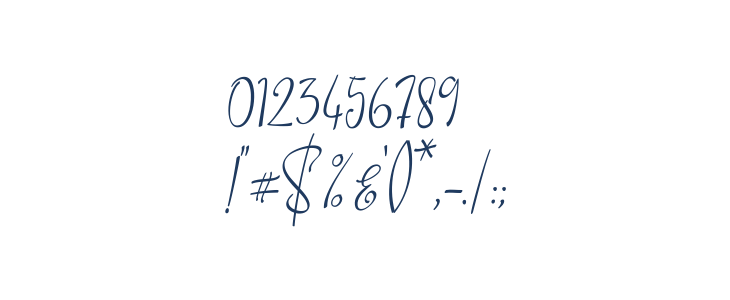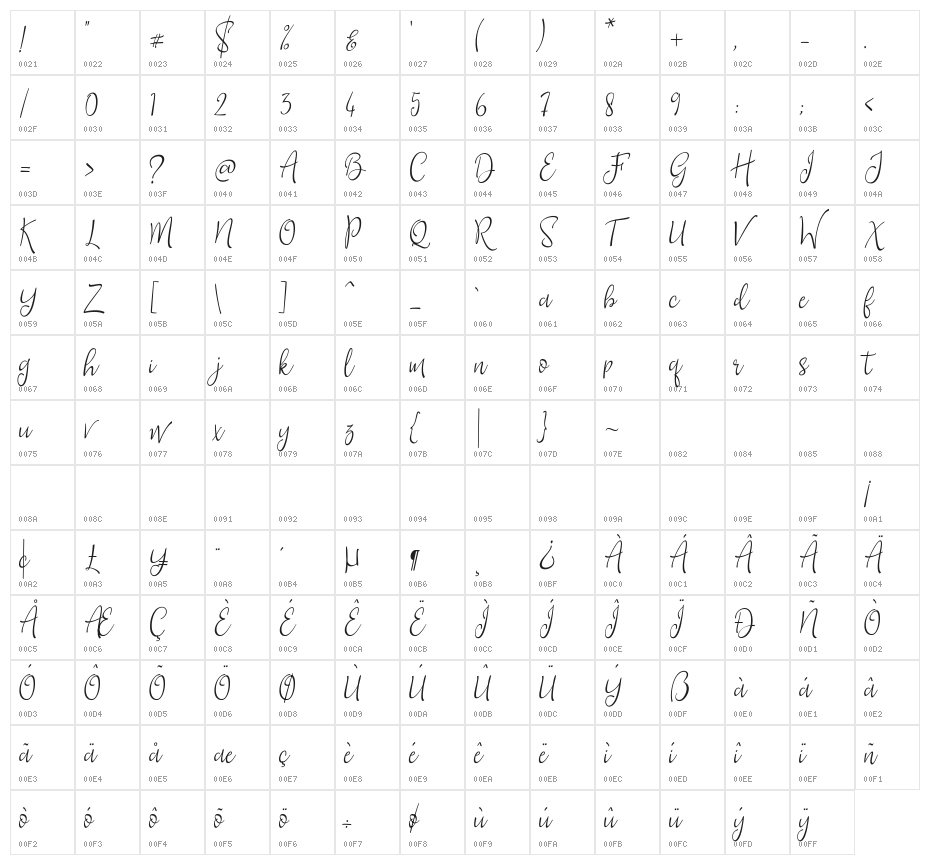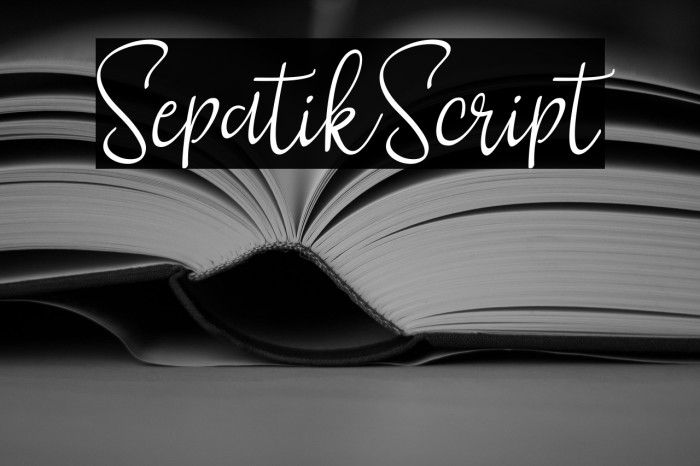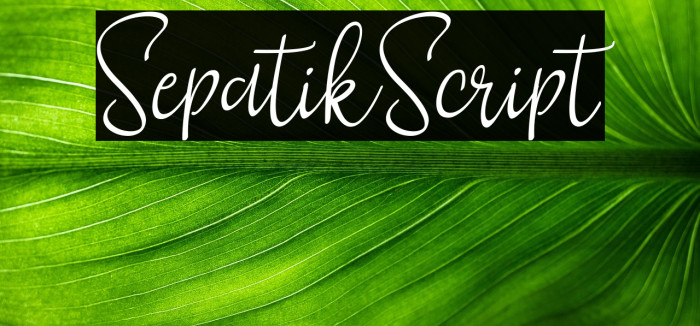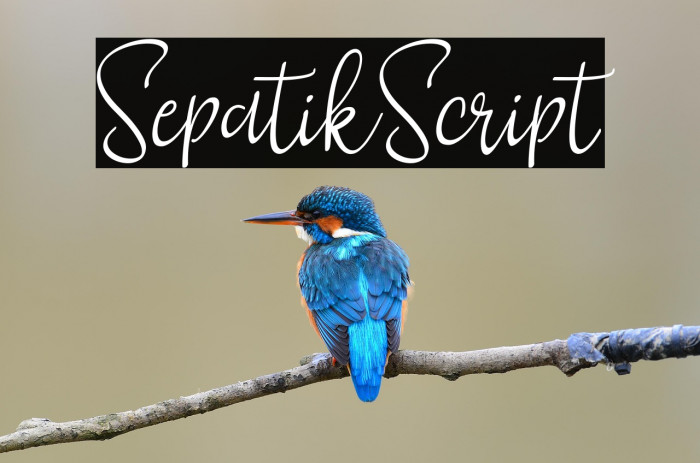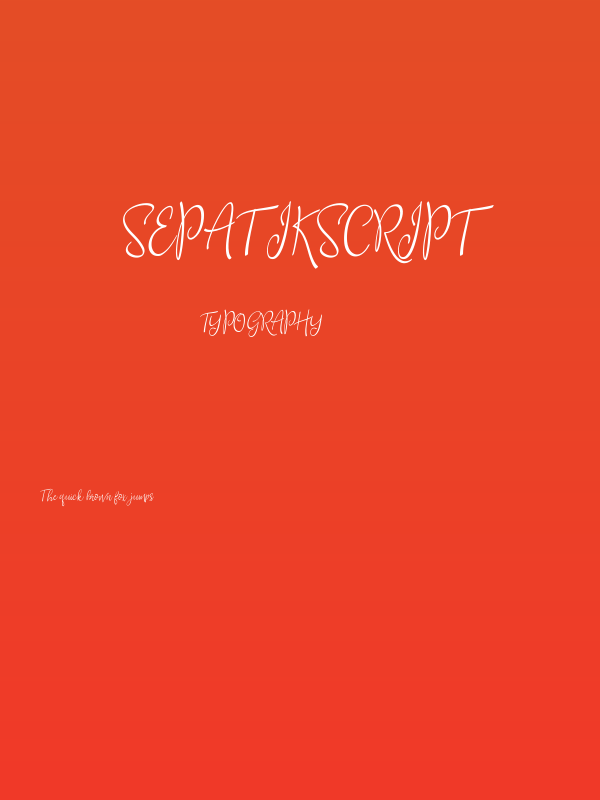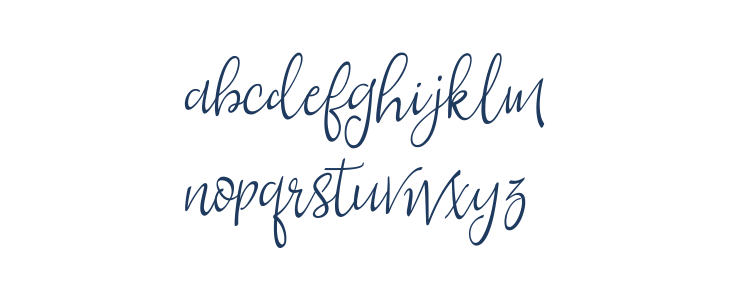
SepatikScript Font
SepatikScript Description
This font exudes a lively and elegant script style, characterized by its fluid and dynamic strokes. The uppercase letters are tall and graceful, with sweeping curves that give a sense of movement and sophistication. The lowercase letters maintain a consistent flow, enhancing readability while retaining a distinct handwritten feel. Numbers and special characters are crafted with the same attention to detail, ensuring a cohesive appearance across all glyphs. The overall design is both modern and timeless, making it suitable for a variety of creative applications. Its unique charm lies in the balance between casual flair and formal elegance, making it versatile for both personal and professional use.
| Use Case | Logos, Invitations, Greeting Cards |
| Proposed Projects | Ideal for wedding invitations, greeting cards, branding, and logo design. |